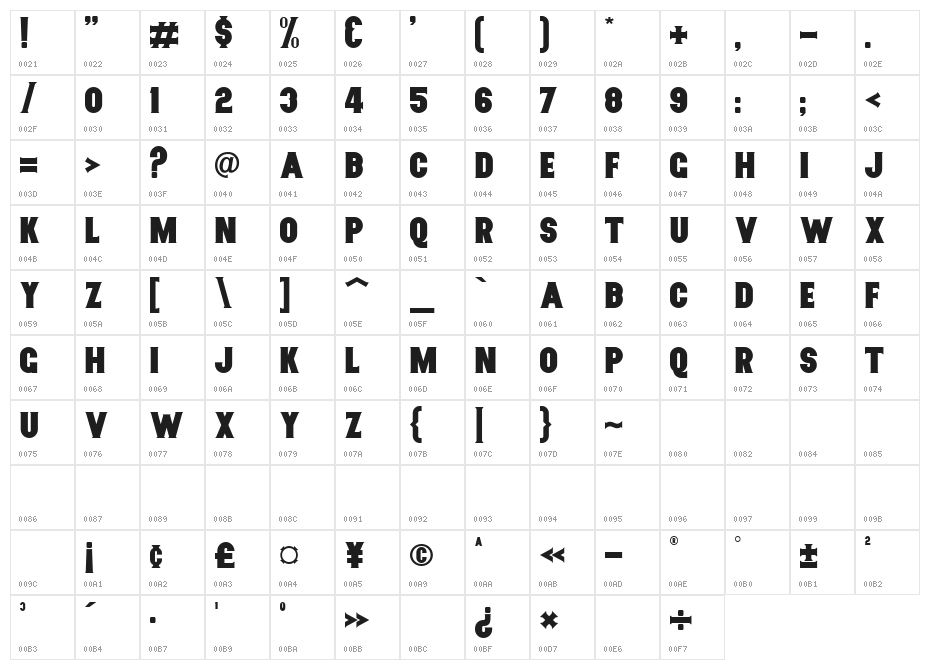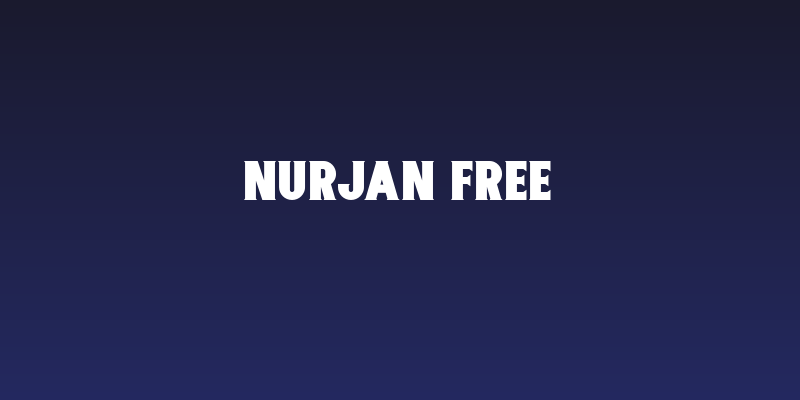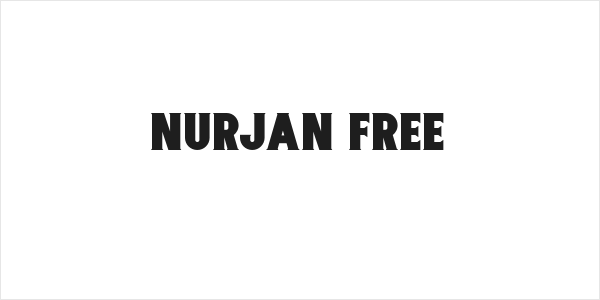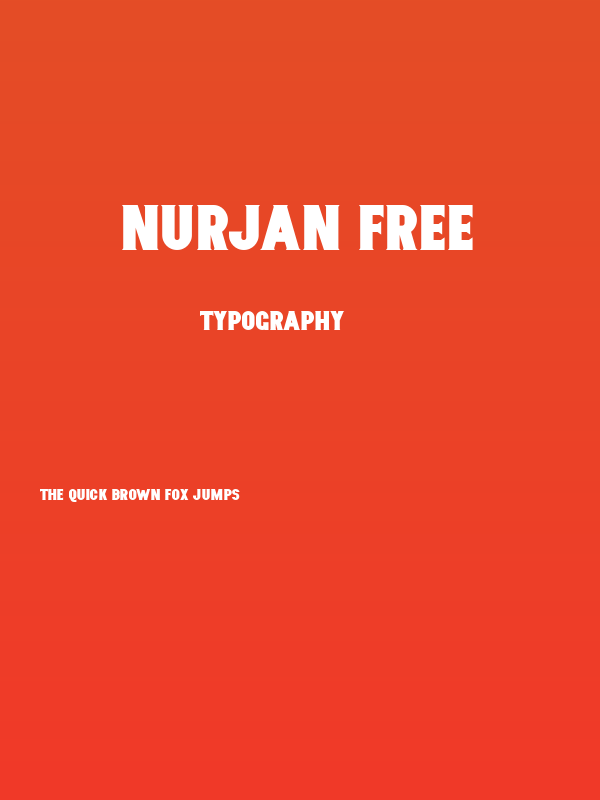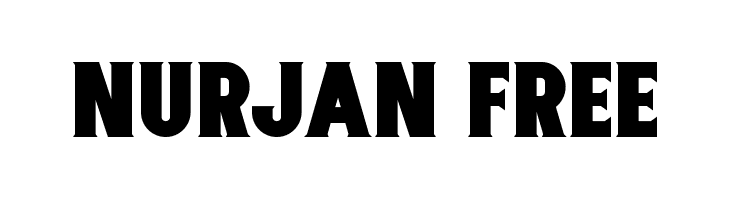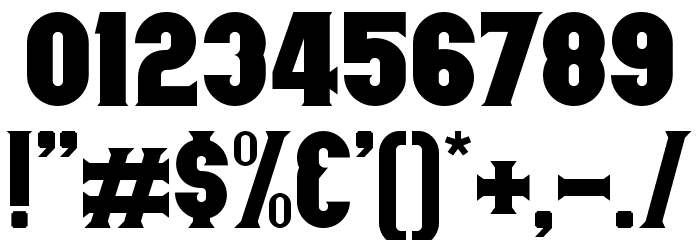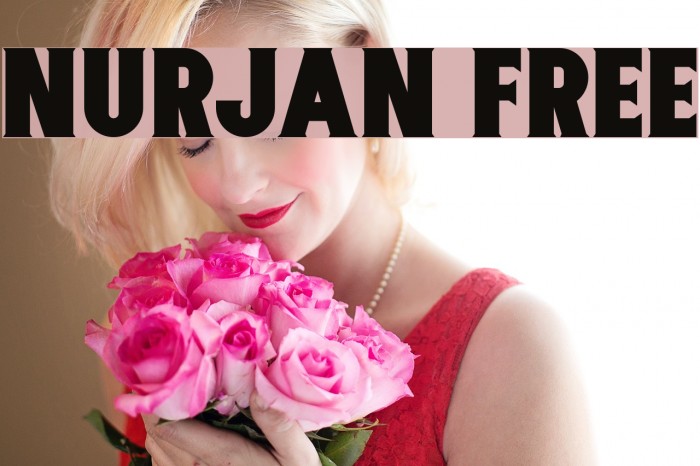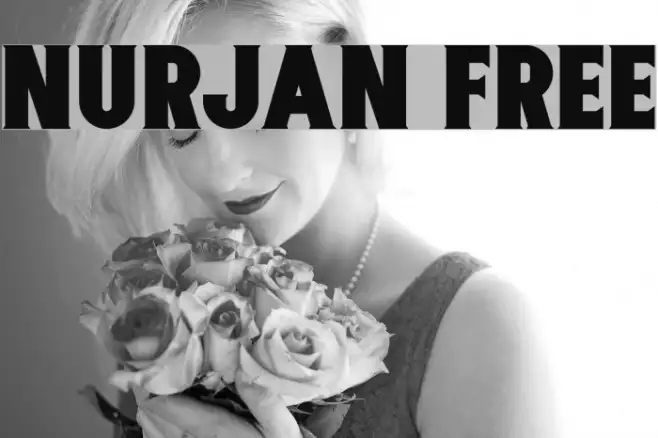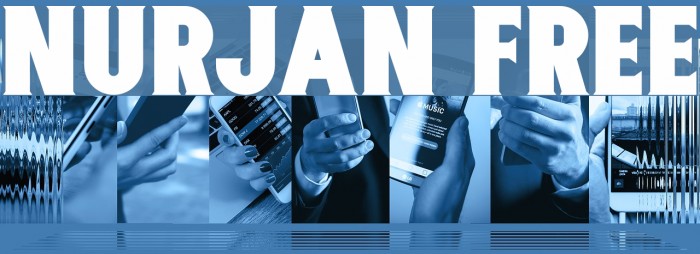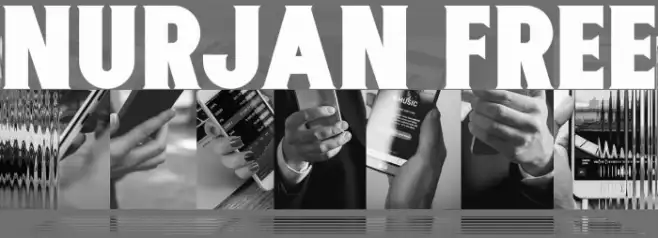
Nurjan Free Font
Nurjan Free Description
This bold and impactful font features strong, thick strokes that convey a sense of power and authority. The uppercase letters are robust and commanding, with a slight slant that adds a dynamic feel. The numbers are equally bold, ensuring they stand out in any context. Special characters are designed with the same weight and presence, making them perfect for attention-grabbing headlines or statements. The overall style is modern and assertive, suitable for projects that require a strong visual impact.
| Proposed Projects | Ideal for posters, headlines, branding materials, and advertising campaigns that require a bold statement. |